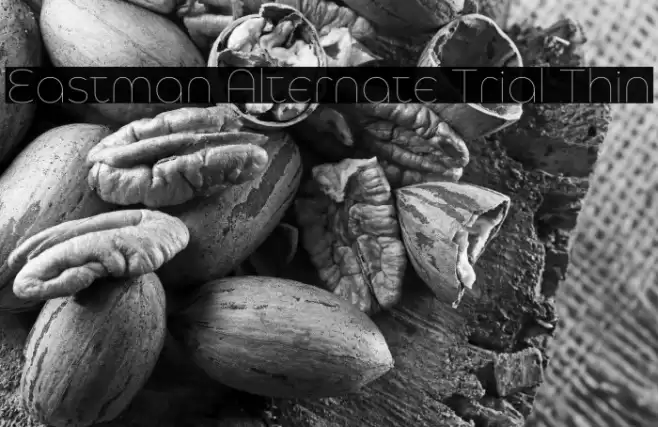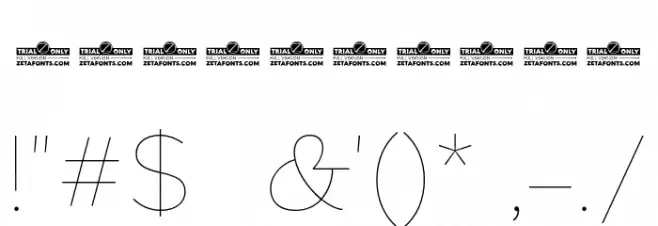
Eastman Alternate Trial Thin Font
Eastman Alternate Trial Thin Description
This font features a sleek, minimalist design with thin, clean lines and a modern aesthetic. The characters are evenly spaced, providing a balanced and airy appearance. The uppercase letters are geometric and symmetrical, while the lowercase letters maintain a consistent height and form. The numerals and special characters follow the same thin, elegant style, making the font versatile for various applications. Its simplicity and clarity make it suitable for contemporary design projects.
A thin, modern font with clean lines and geometric shapes from Uncategorized fonts.
- Proposed Projects: Ideal for modern branding, minimalist posters, digital interfaces, and editorial design.
- Use Case: Headlines, Logos, Digital interfaces